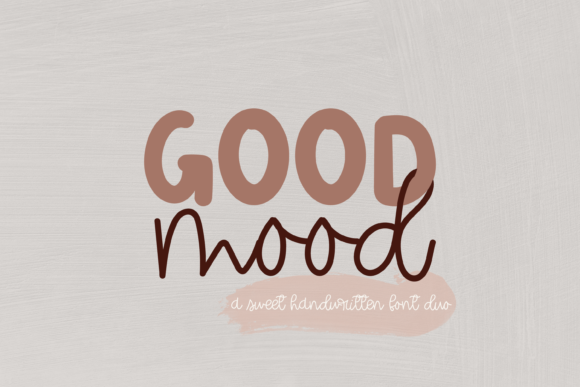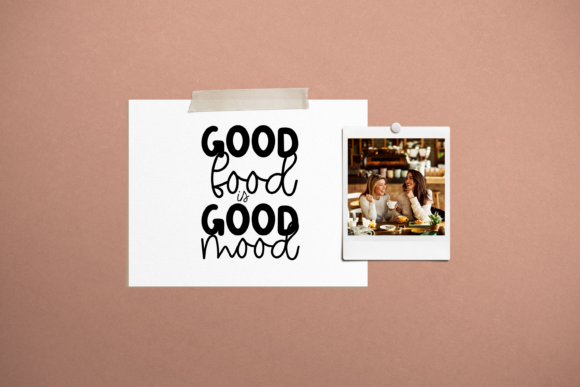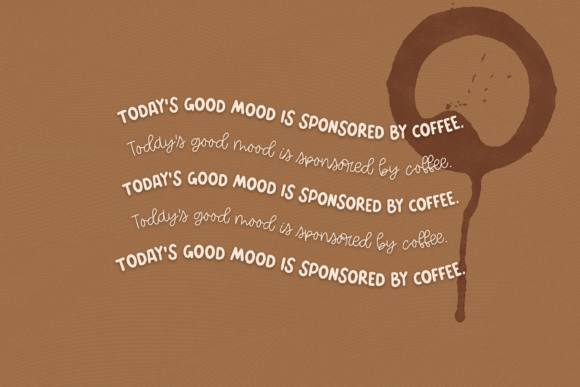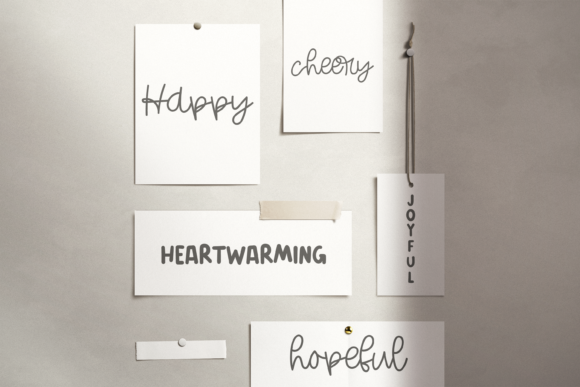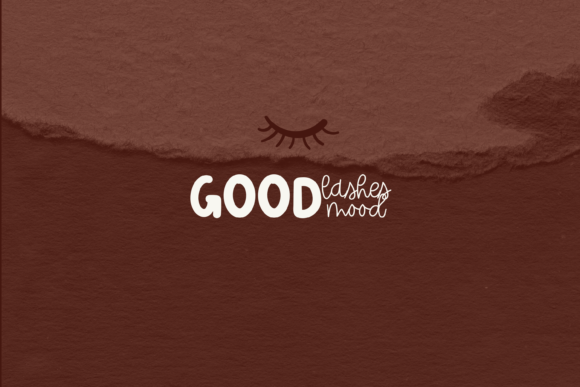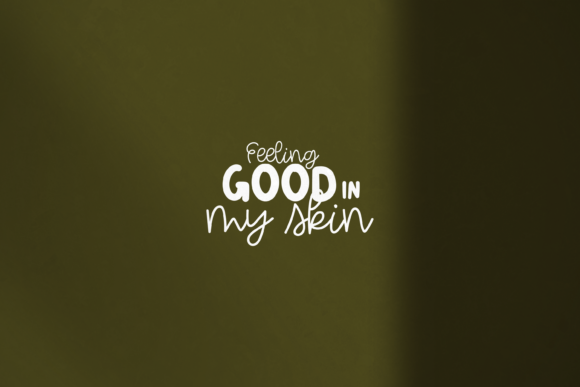
About Good Mood Font
Good Mood is a bold and quirky duo font (sans serif and handwritten). Get inspired by its incredibly elegant feel and use it to turn any design project into a standout!